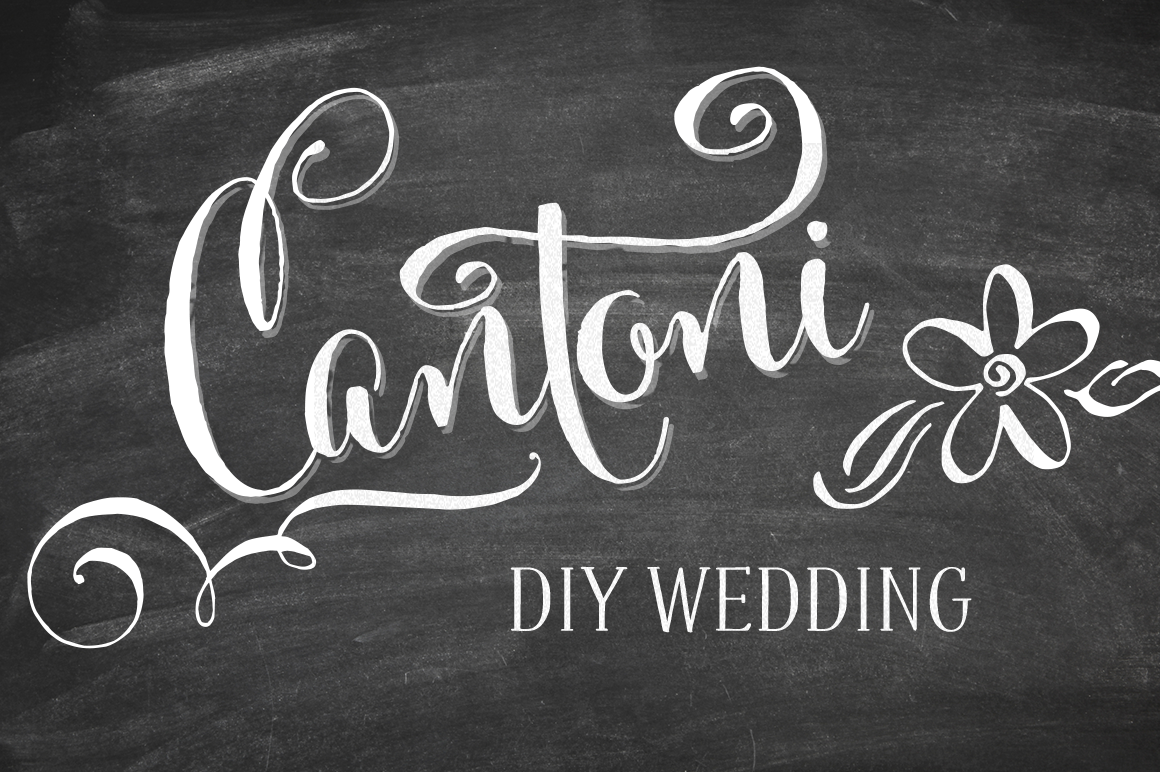
Cantoni DIY Wedding Font
The Cantoni DIY Wedding font features 93 words, numbers and symbols that can be used to create all forms of wedding signage. Click here to see the keyboard map showing the entire set: http://letteringartstudio.com/wp-content/uploads/2014/05/Cantoni-DIY-Wedding-Map.pdf
Named after my large Italian family, Cantoni is a font family with a unique variety of letters based on my own fluid upright style of brush lettering, that reminds me of every family I know. There are creative and conservative siblings, crazy in a good way cousins, affable aunts and corny joke telling uncles who somehow come together and form one cohesive unit. The party starts. The fun begins. And soon they're all laughing and dancing up and down the baseline.